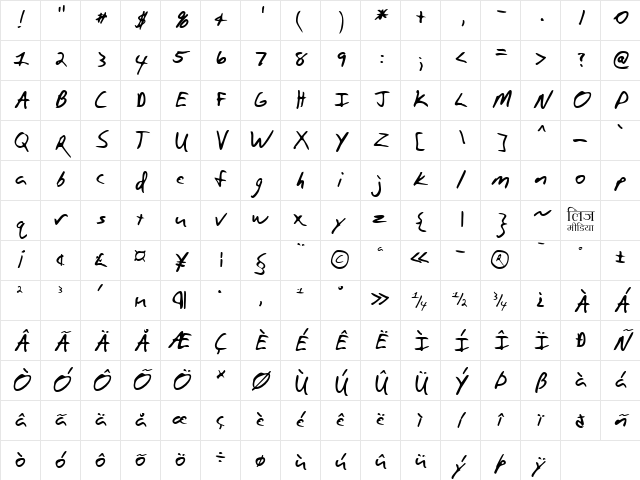
LEHN109 Regular
Design Context for LEHN109
LEHN109 is a composed and adaptable typeface that performs quietly and consistently across a wide range of design contexts.